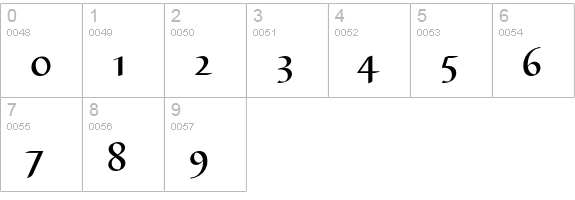
Barbedor SC T Medium is a balanced, medium-weight variant in the Barbedor typeface family \xE2\x80\x94 well suited to sub-headlines, navigation, and balanced editorial work.
Barbedor SC T Medium font is a versatile and elegant typeface that exudes sophistication and style. With its sleek lines and classic design, this font is perfect for a wide range of projects, from branding to editorial design. The medium weight of the font strikes the perfect balance between readability and impact, making it suitable for both headers and body text. What sets Barbedor SC T Medium font apart is its unique combination of traditional elements with a modern twist. The sharp serifs and clean lines give it a timeless appeal, while the subtle curves and delicate detailing add a touch of contemporary flair. Whether you're working on a print project, a website design, or any other creative endeavor, Barbedor SC T Medium font is sure to elevate your work to the next level. And the best part? This stunning typeface is available for free download at FontsMarket.com, making it accessible to all designers and creatives looking to add a touch of sophistication to their projects. Don't miss out on the opportunity to enhance your design work with this exceptional font - download Barbedor SC T Medium today!